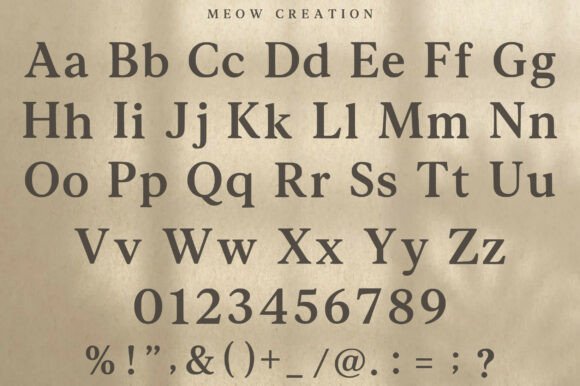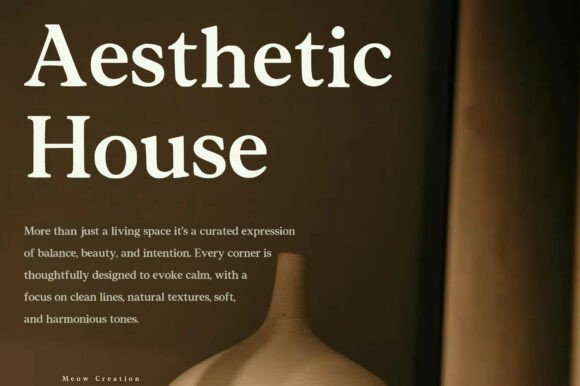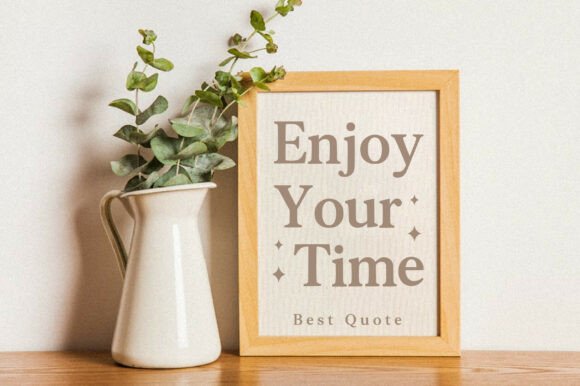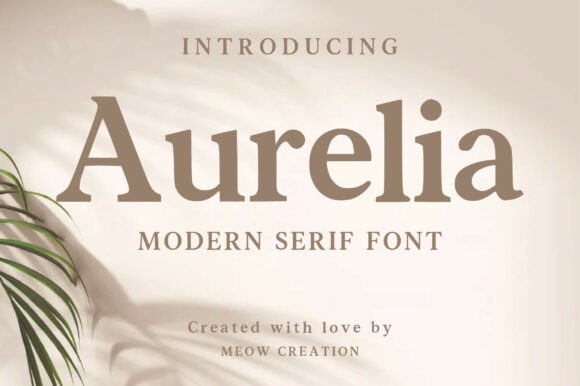
Aurelia Font: Elevate Your Designs with Timeless Elegance
In the world of typography, some fonts stand out for their classic appeal and versatility. Aurelia is one such font that has captured the hearts of designers and crafters alike. This serif font is renowned for its timeless and sophisticated style, making it a perfect choice for a wide range of design projects. From branding and editorial design to invitations, packaging, and headlines, Aurelia brings a touch of elegance and professionalism that can elevate any design.
The Characteristics of Aurelia Font
Aurelia is distinguished by its refined letterforms, which exude a sense of sophistication and grace. The font features classic serif elements, including subtle curves and balanced proportions, which contribute to its elegant appearance. Aurelia’s design ensures that it remains highly legible, even at smaller sizes, making it suitable for both print and digital applications.
One of the key advantages of Aurelia is its versatility. This font can be seamlessly integrated into various design projects, including:
- Branding: Aurelia’s classic and sophisticated style makes it an excellent choice for logos and brand identities that aim to convey elegance and professionalism.
- Editorial Design: For magazines, newspapers, and digital publications, Aurelia provides a refined and readable text experience.
- Invitations: Whether it’s a wedding invitation, event announcement, or formal gala invite, Aurelia adds a touch of grace and luxury.
- Packaging: Aurelia’s elegant style enhances product packaging, making it stand out on store shelves.
- Headlines: Use Aurelia to create compelling headlines that capture attention and convey a sense of sophistication.
Why Choose Aurelia Font?
There are several reasons why designers and crafters prefer Aurelia for their projects:
- Timeless Appeal: Aurelia’s classic design ensures that your work remains relevant and stylish for years to come.
- Elegance and Sophistication: The font’s refined letterforms add a level of elegance and sophistication to any design.
- Print and Digital Compatibility: Aurelia performs exceptionally well in both print and digital formats, offering flexibility in its use.
- Enhanced Legibility: The well-crafted design of Aurelia ensures high legibility, making it easy to read in various contexts.
Tips for Using Aurelia Font Effectively
To maximize the impact of Aurelia in your designs, consider the following tips:
- Pair with Complementary Fonts: Combine Aurelia with sans-serif fonts or modern script fonts to create visual interest and contrast.
- Adjust Font Sizes: Use varying font sizes to create a hierarchy of information, making your design more engaging and easier to navigate.
- Utilize Font Weights: Experiment with different weights of Aurelia to add depth and emphasis to your design elements.
- Consider Color Schemes: Choose color palettes that complement the elegance of Aurelia, such as neutral tones, pastels, or rich jewel tones.
| Font Name | Aurelia Font |
| Author | Meow Creation |
Aurelia is a versatile and elegant serif font that can elevate a wide range of design projects. Its timeless appeal, refined letterforms, and high legibility make it a valuable asset for designers and crafters seeking to add a touch of sophistication and professionalism to their work. Whether you’re creating branding materials, editorial content, invitations, packaging, or headlines, Aurelia is an excellent choice that can enhance the visual appeal of your designs.
Embrace the elegance of Aurelia and discover how this classic font can transform your designs into polished and stylish creations that stand out in any medium.